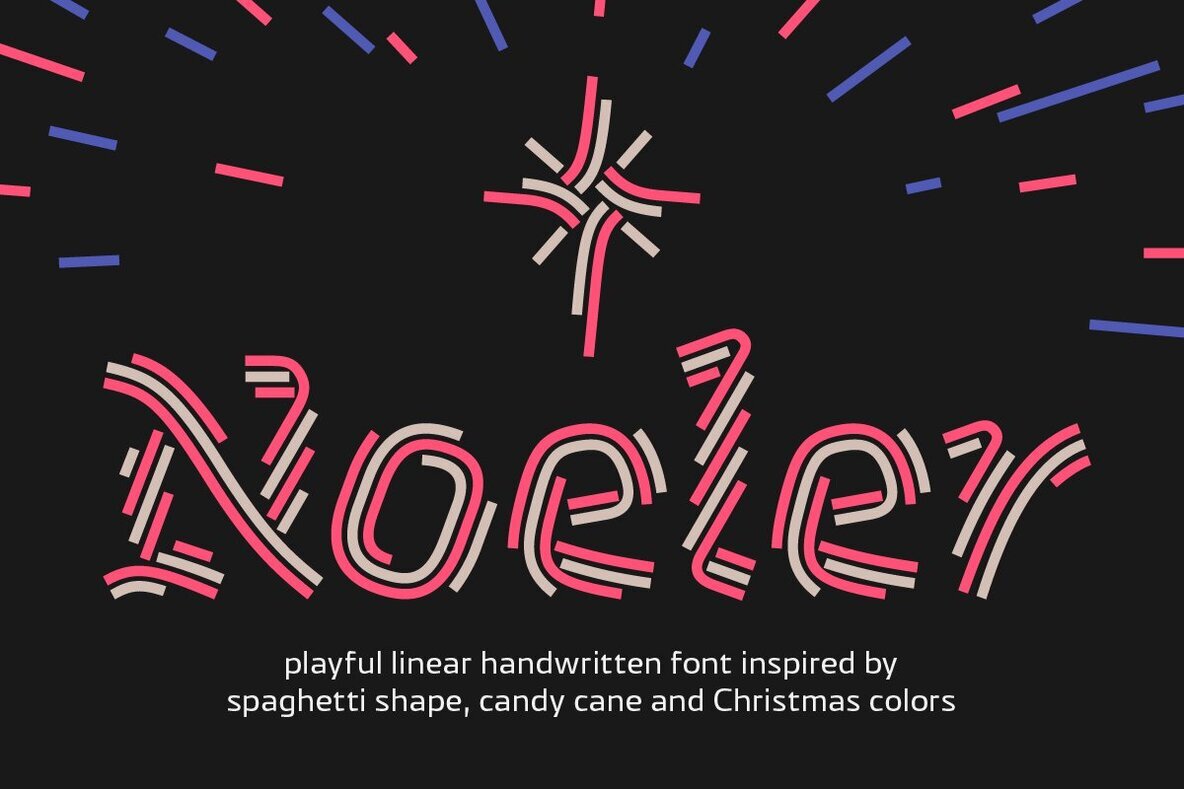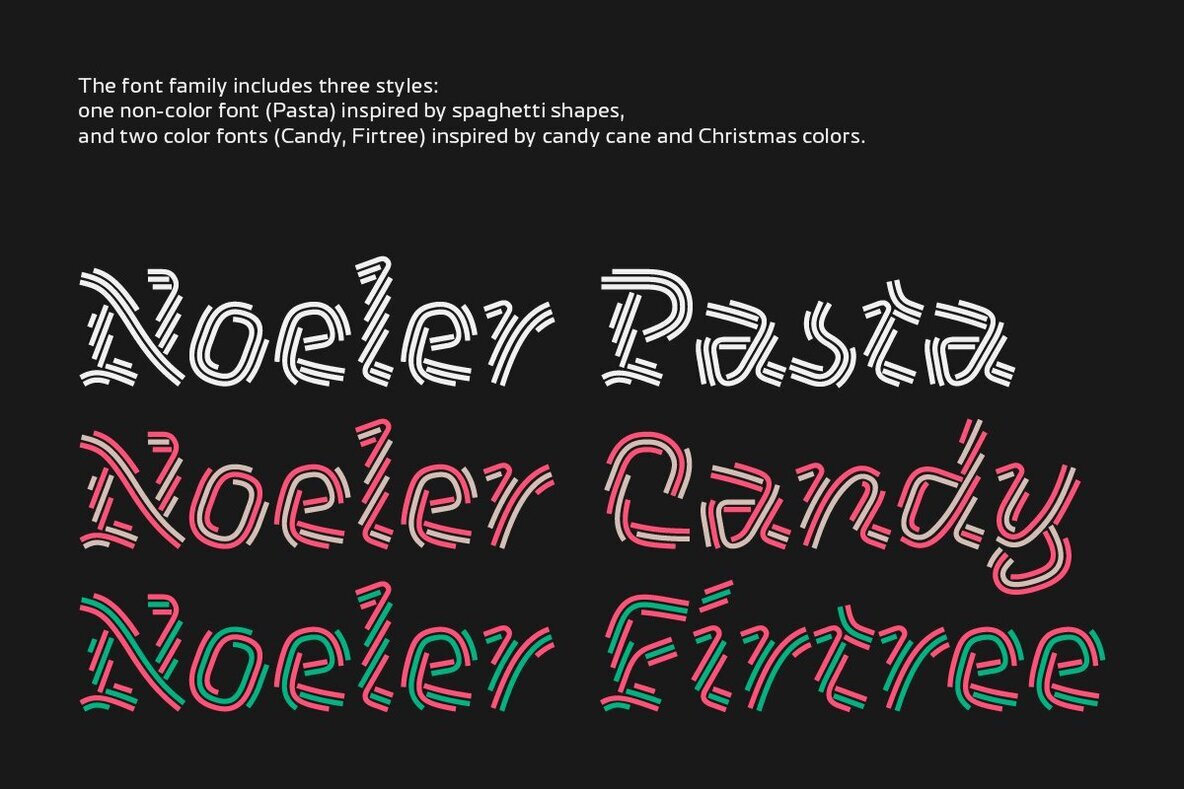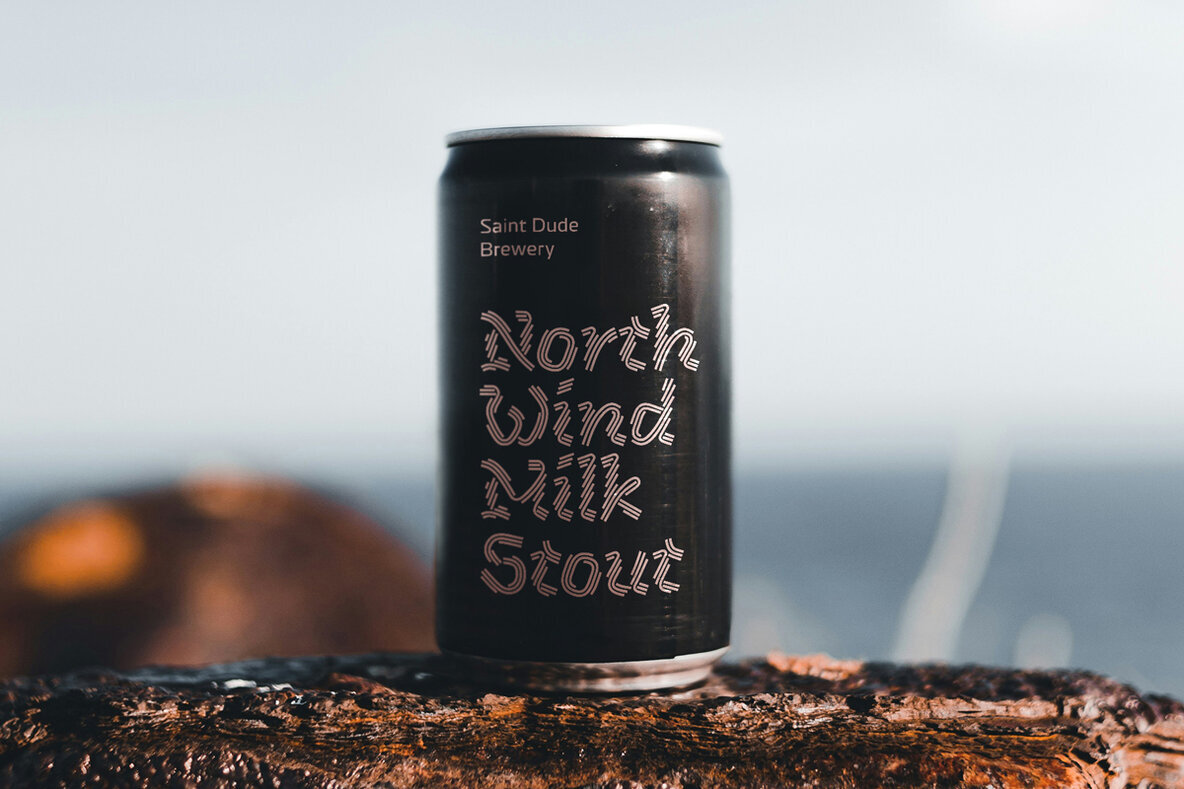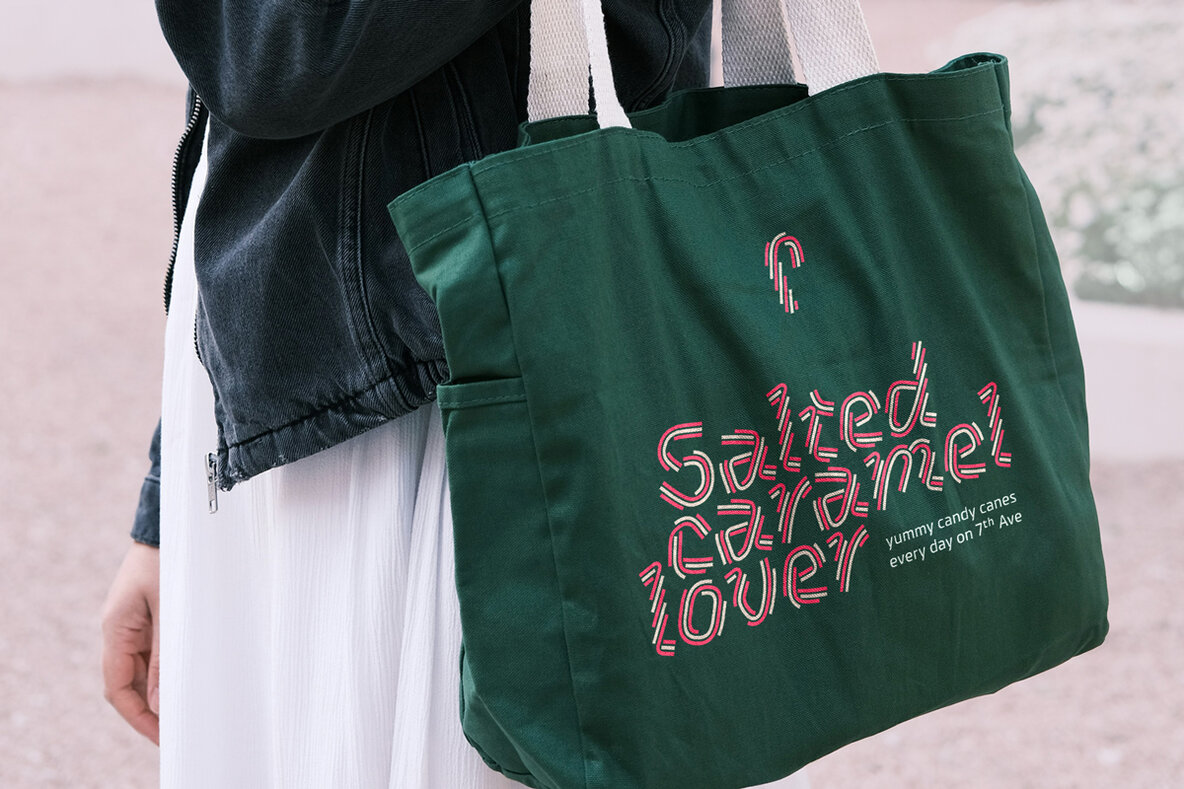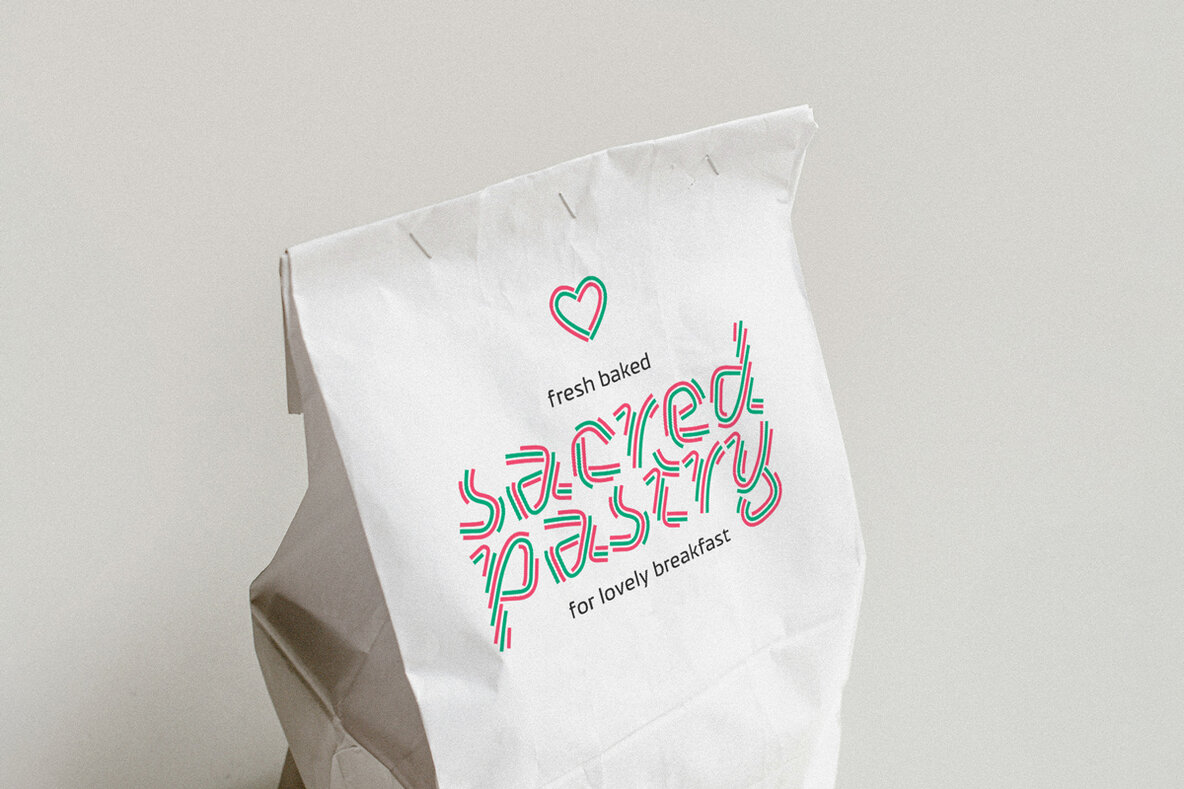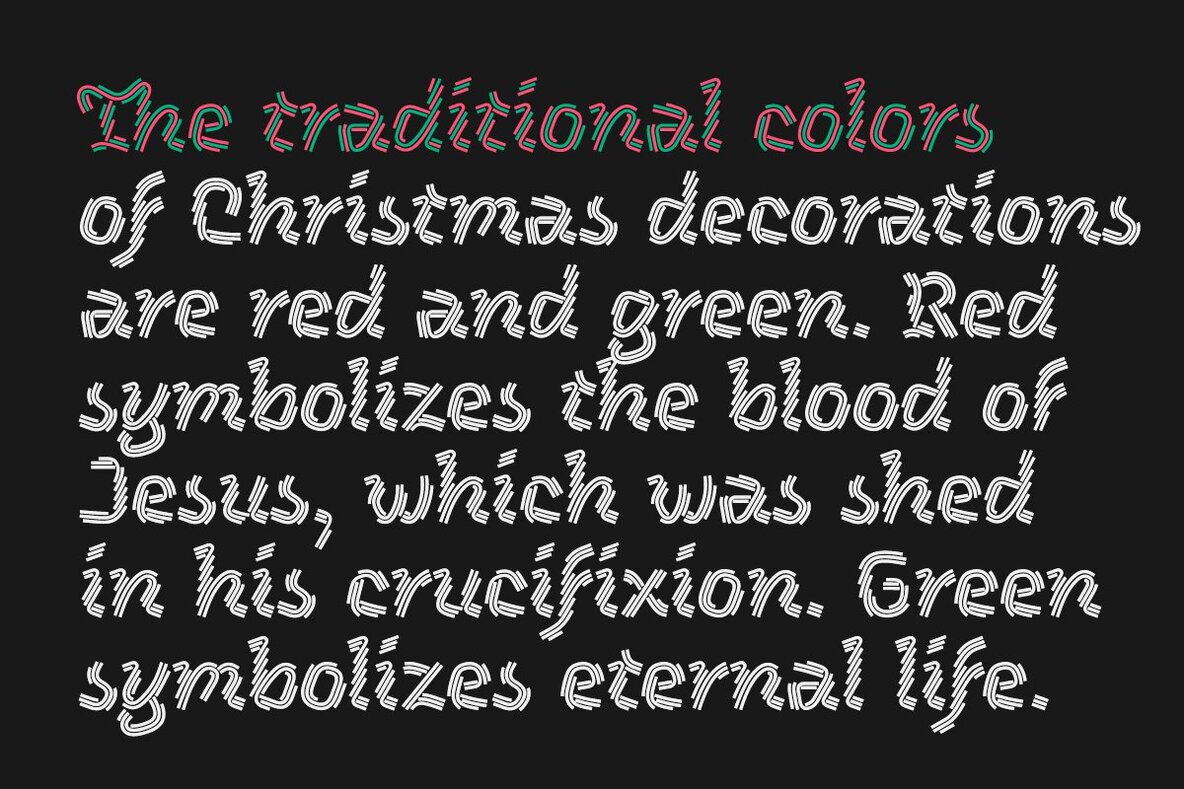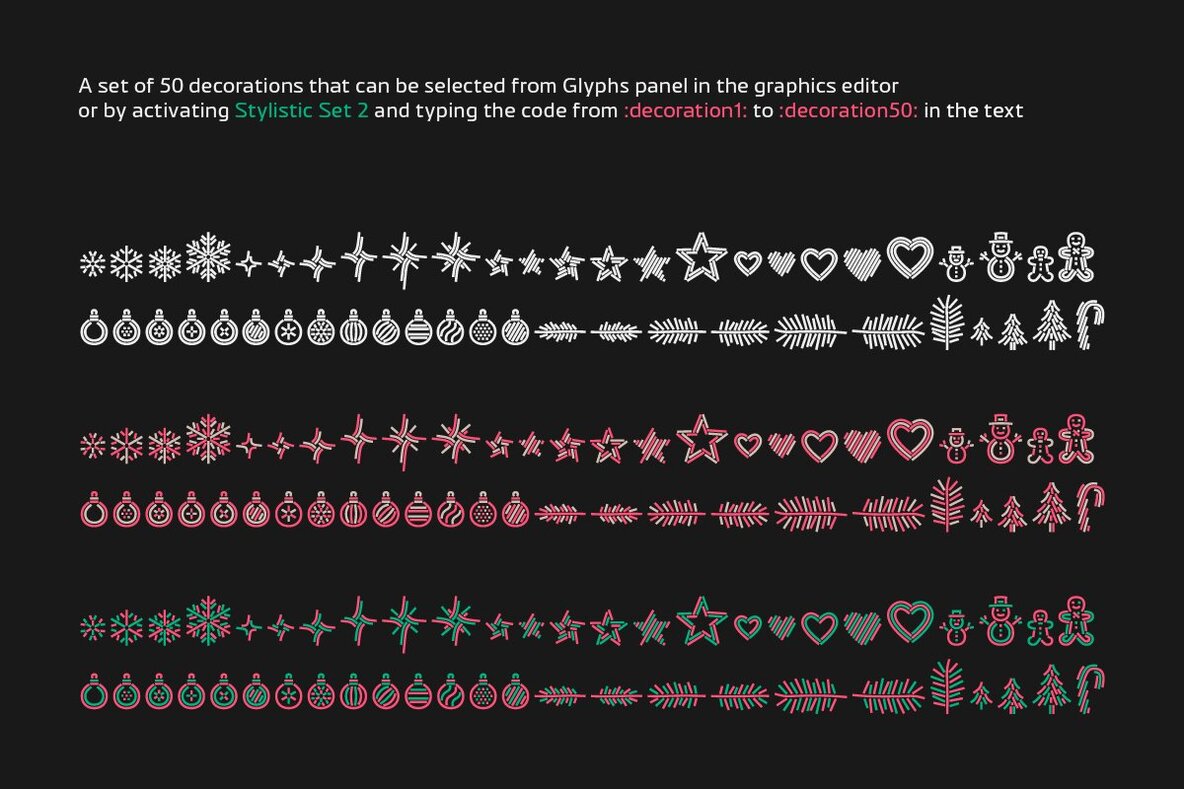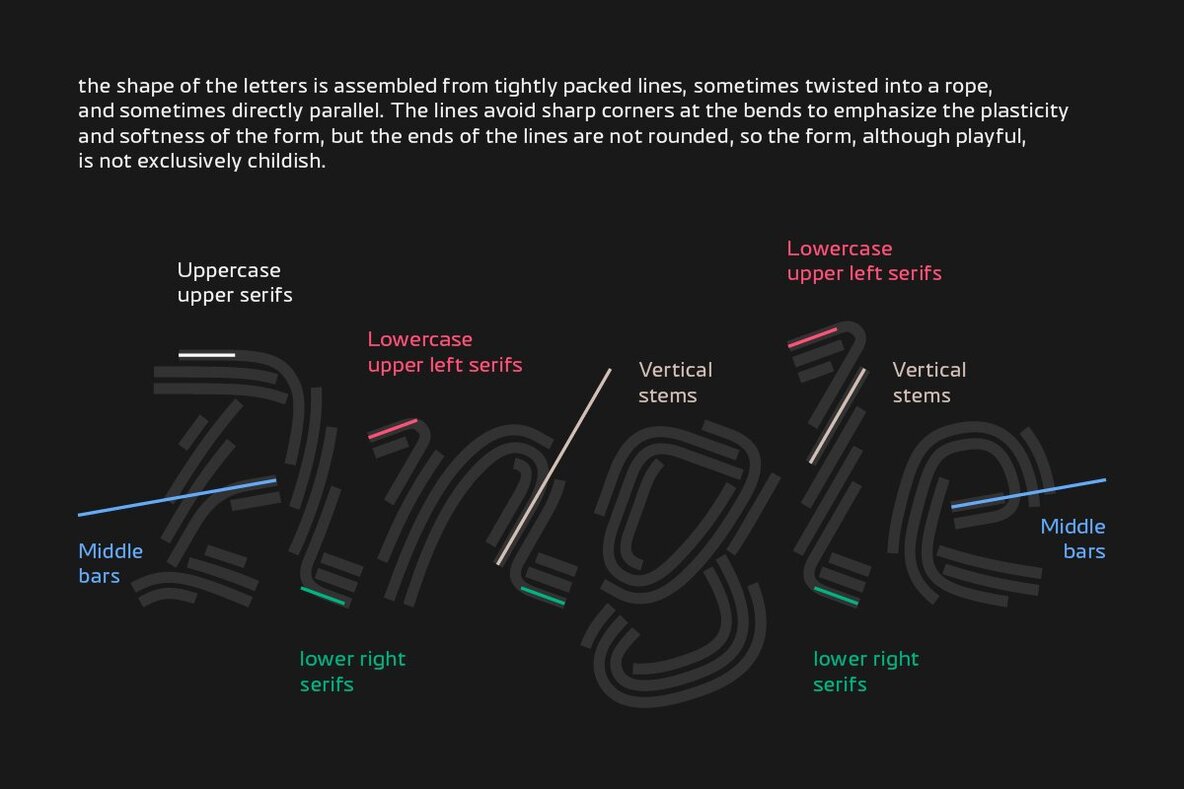
Noeler Font
Noeler is a playful linear handwritten font with a festive mood. The font family includes one non-color font (Pasta) inspired by spaghetti shapes, and two color fonts (Candy, Firtree) inspired by candy cane and Christmas colors. The story of this font begins with the shape of a candy cane, which resembled the Latin capital letter J, and so the idea arose that this twisted shape and these colors could really be letters. Interestingly, in a non-color version, the same shapes begin to resemble spaghetti, and that is why the styles of the font family were named according to their visual function. Color fonts are represented in two separate versions – with COLR table or SVG table. COLR version is needed for all the web browsers and most of the desktop applications. SVG version is needed for InDesign, After Effects, Premiere Pro, Inkscape, CorelDRAW, and for Photoshop / Illustrator before the version 2025. The fonts contains a set of 50 primitive linear decorations that could be an inspirational starting point for your Christmas designs, such as: snowflakes, stars, star of Bethelhem, five-pointed stars, hearts, candy cane, fir trees, fir branches, snowman, gingerbread man, Christmas bulbs. Some of them are presented in different size and appearance to fit with lowercases or uppercases. Scripts supported: Latin, Cyrillic, Greek